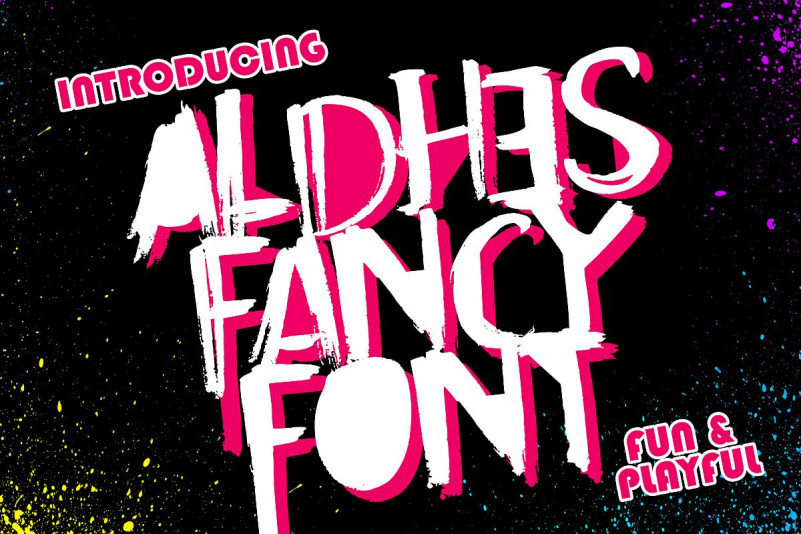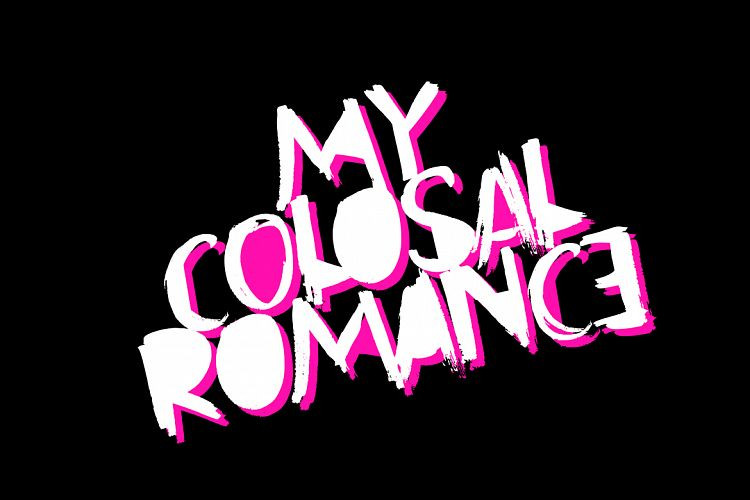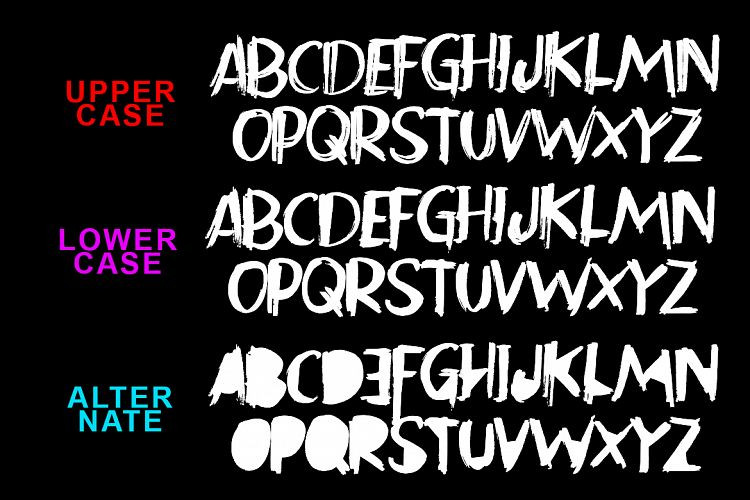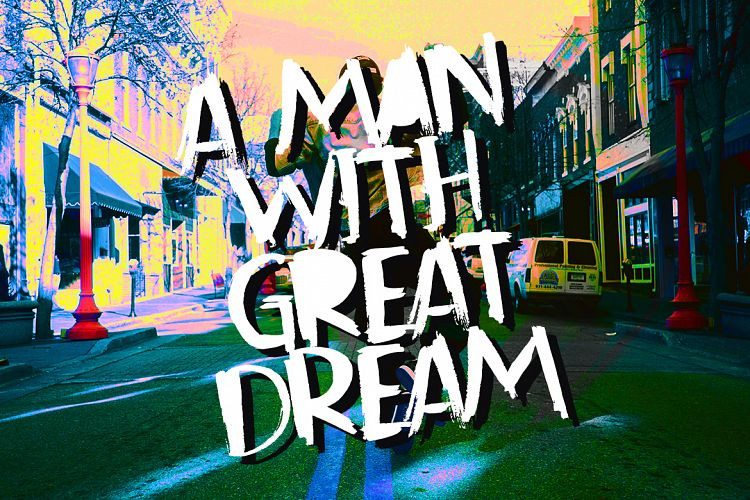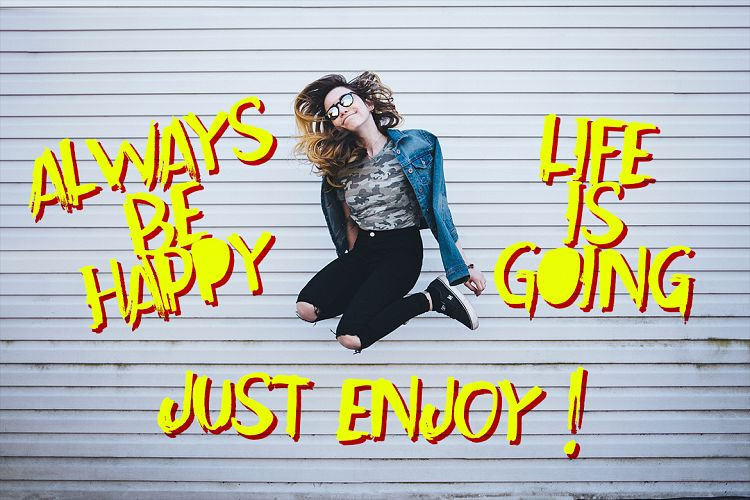
Aldhes Fancy Font Regular
Hi Guys ! This is Aldhes font. We made it with fun, so you can look closely that this font is so young, better for music poster, logo, advertisement, clothing, and many other fun project.